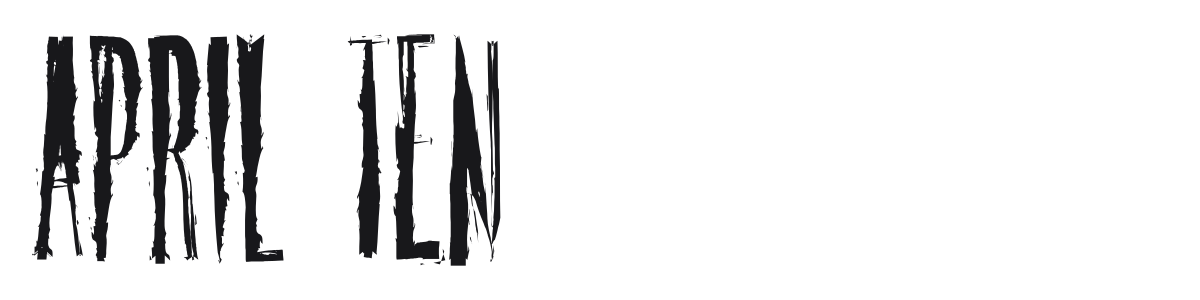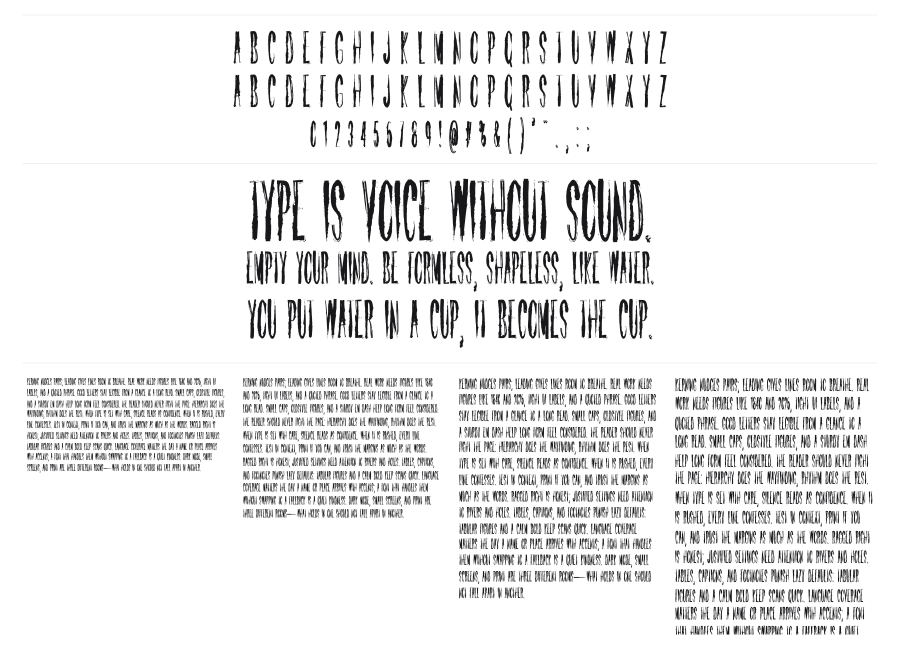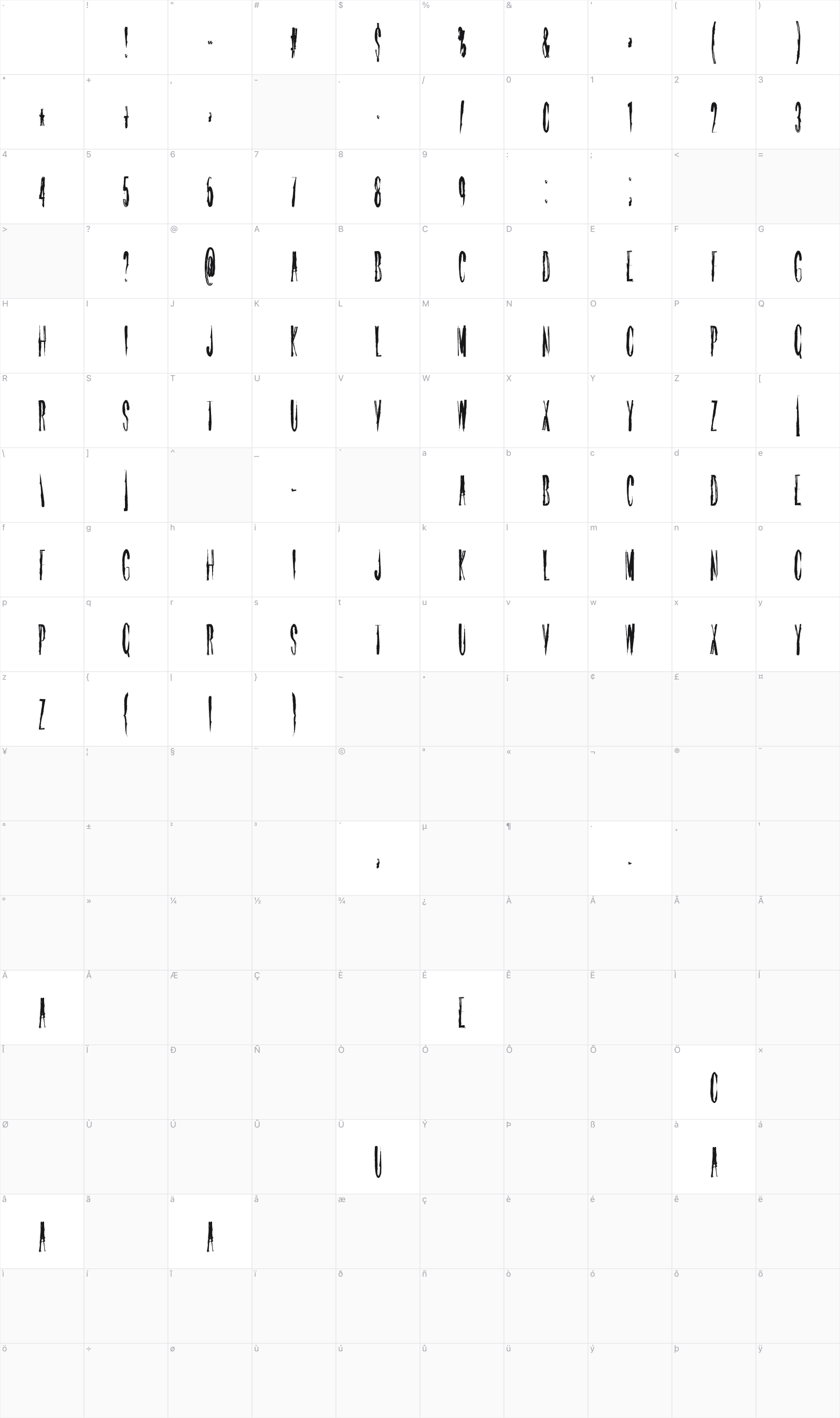
April Ten
April Ten is a heavily distressed condensed display font with a raw, shredded aesthetic that feels torn from a punk flyer or horror title sequence. Every stroke carries rough, irregular texture that makes each character look inked by hand under pressure. The extreme condensed proportions and bold weight give it strong presence at large sizes.